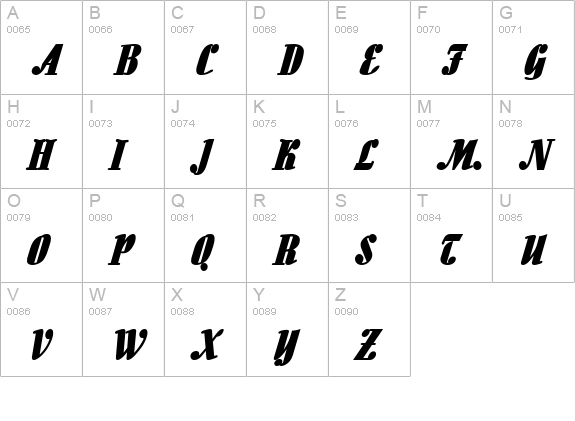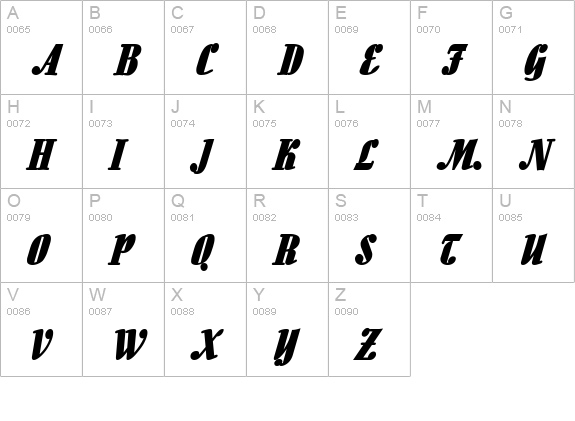
Aloe BoldItalic is a stylish and sophisticated font that exudes elegance and modernity. Its bold yet italic design adds a touch of flair to any project, making it the perfect choice for those looking to make a statement with their typography. This versatile font is ideal for a wide range of design projects, from branding and advertising to invitations and social media graphics. And the best part? Aloe BoldItalic is available for free download at FontsMarket.com. So whether you're a professional designer looking for a new go-to font or just someone who appreciates high-quality typography, be sure to check out Aloe BoldItalic for all your creative needs. With its sleek and eye-catching style, this font is sure to elevate your designs and make a lasting impression.